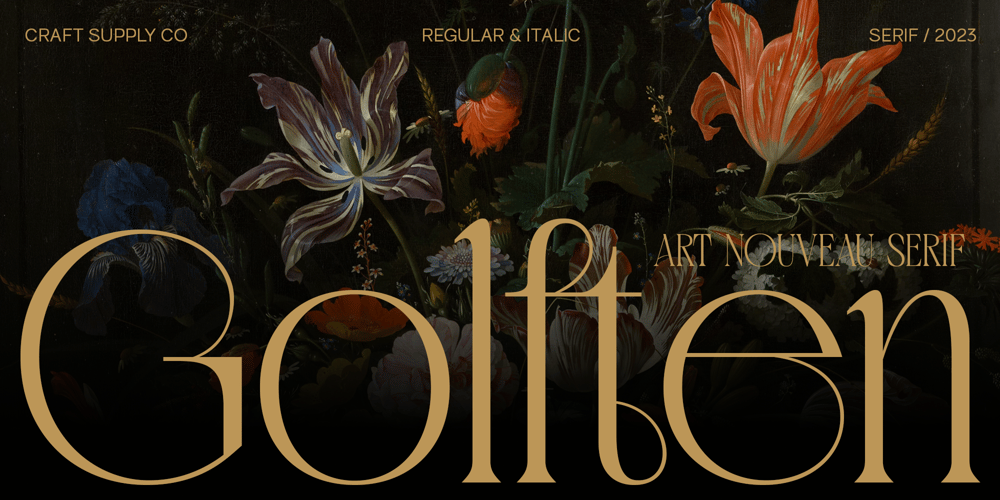
Golften Font Family was designed by Trio Nazzar Saputra, Wahyu Hadi Yuana and published by Craft Supply Co. Golften contains 5 styles and family package options. In the world of typography, Golften – Art Nouveau Serif Font stands as an epitome of elegance. It gracefully channels the beautiful and harmonious flow, drawing inspiration from the Art Nouveau style. Let’s delve into why Golften is an exceptional choice for those seeking refined and graceful design.Elegance at Its CoreFirst and foremost, Golften exudes elegance through its graceful serifs and harmonious lines. It encapsulates the very essence of Art Nouveau. Moreover, its flowing curves and intricate details create a captivating visual experience, making it the ideal choice for designers aiming to create visually stunning projects.Versatile BeautyWhat sets Golften apart is its versatility, which knows no bounds. It seamlessly adapts to various design projects. Whether you’re crafting wedding invitations, establishing elegant branding, or designing artistic posters, Golften adds an exquisite touch that elevates your work. Furthermore, this font’s adaptability makes it suitable for a wide range of creative endeavors.Inspired by Art NouveauGolften draws inspiration from the Art Nouveau movement, celebrated for its organic forms and ornate aesthetics. This font mirrors those principles, making it a perfect choice for projects aiming to capture the timeless allure of this influential style. With Golften, you can effortlessly infuse your designs with the spirit of Art Nouveau.